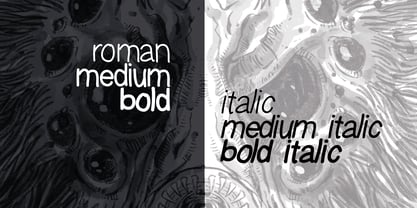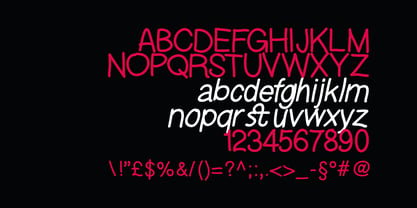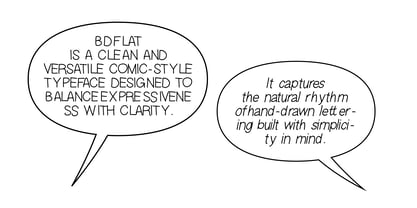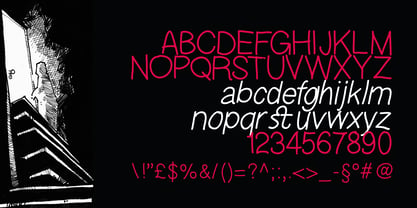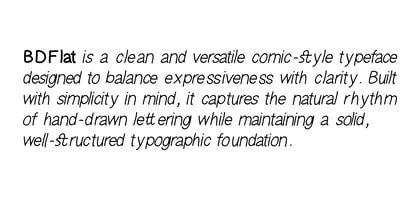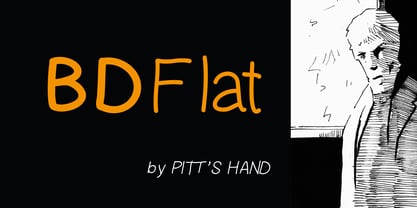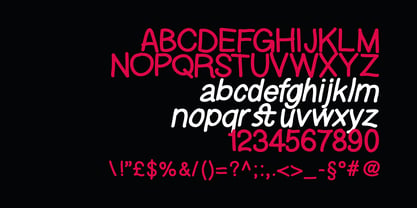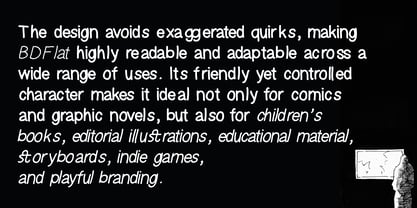
BDFlat
por Pitt's Hand
La familia tipográfica BDFlat fue diseñada por Pietro Rotelli y publicada por Pitt's Hand. BDFlat contiene 6 estilos y opciones de paquete familiar. Más información sobre esta familia
BDFlat is a clean and versatile comic-style typeface designed to balance expressiveness with clarity. Built with simplicity in mind, it captures the natural rhythm of hand-drawn lettering while maintaining a solid, well-structured typographic foundation. The design avoids exaggerated quirks, making BDFlat highly readable and adaptable across a wide range of uses. Its friendly yet controlled character makes it ideal not only for comics and graphic novels, but also for children’s books, editorial illustrations, educational material, storyboards, indie games, and playful branding. The family includes Roman, Medium, Bold, Medium Italic, and Bold Italic, allowing for clear hierarchy, emphasis, and narrative flow within dialogue, captions, and sound effects. Italic styles are optimized for emphasis and motion, while bold weights provide strong visual impact without overpowering the page. With a total of 901 glyphs, BDFlat offers extensive multilingual and symbolic support, covering: Basic Latin Latin-1 Supplement Latin Extended-A Latin Extended-B Spacing Modifier Letters Greek and Coptic Cyrillic General Punctuation Currency Symbols Letterlike Symbols Arrows Mathematical Operators Miscellaneous Technical Geometric Shapes Miscellaneous Symbols CJK Symbols and Punctuation Alphabetic Presentation Forms Private Use Area (Plane 0) This broad character set makes BDFlat suitable for international projects, technical layouts, and creative experimentation beyond traditional comic lettering. Whether you are crafting dialogue-heavy comics, expressive captions, or approachable visual narratives, BDFlat delivers a reliable, friendly voice with professional typographic depth.
Diseñadores: Pietro Rotelli
Fundición actual: Pitt's Hand